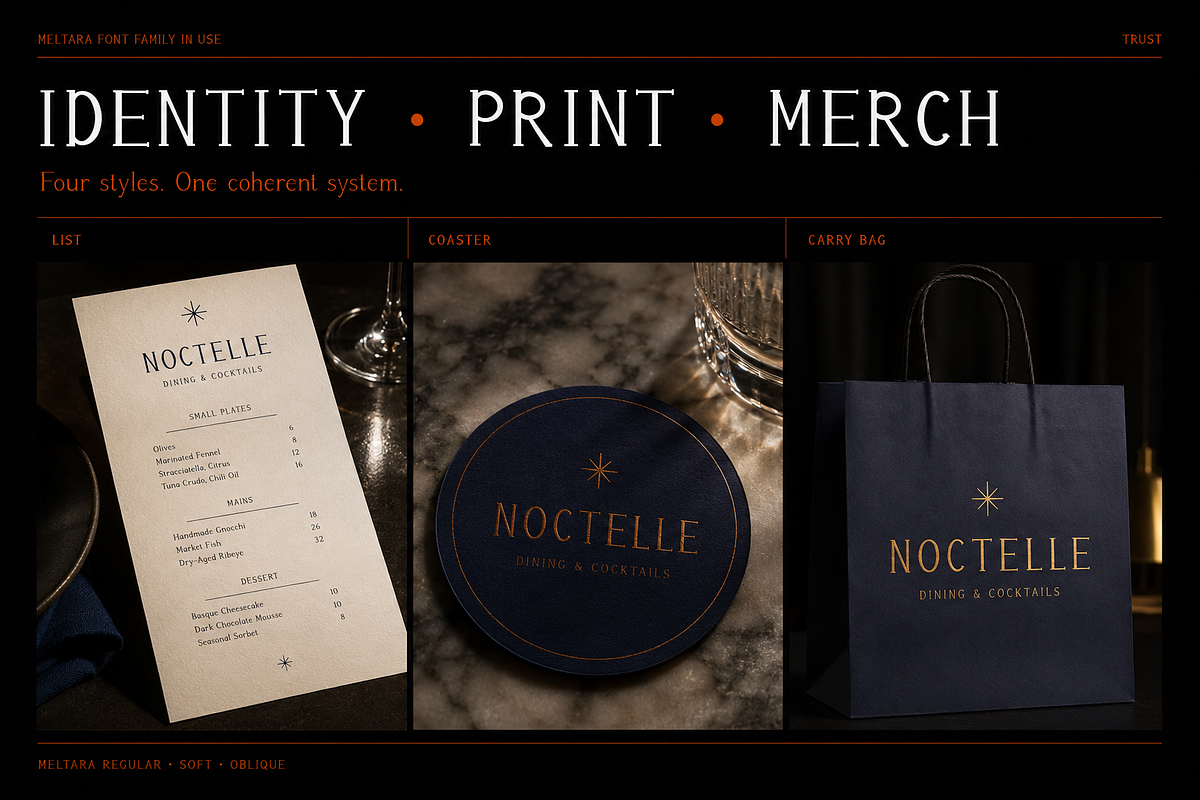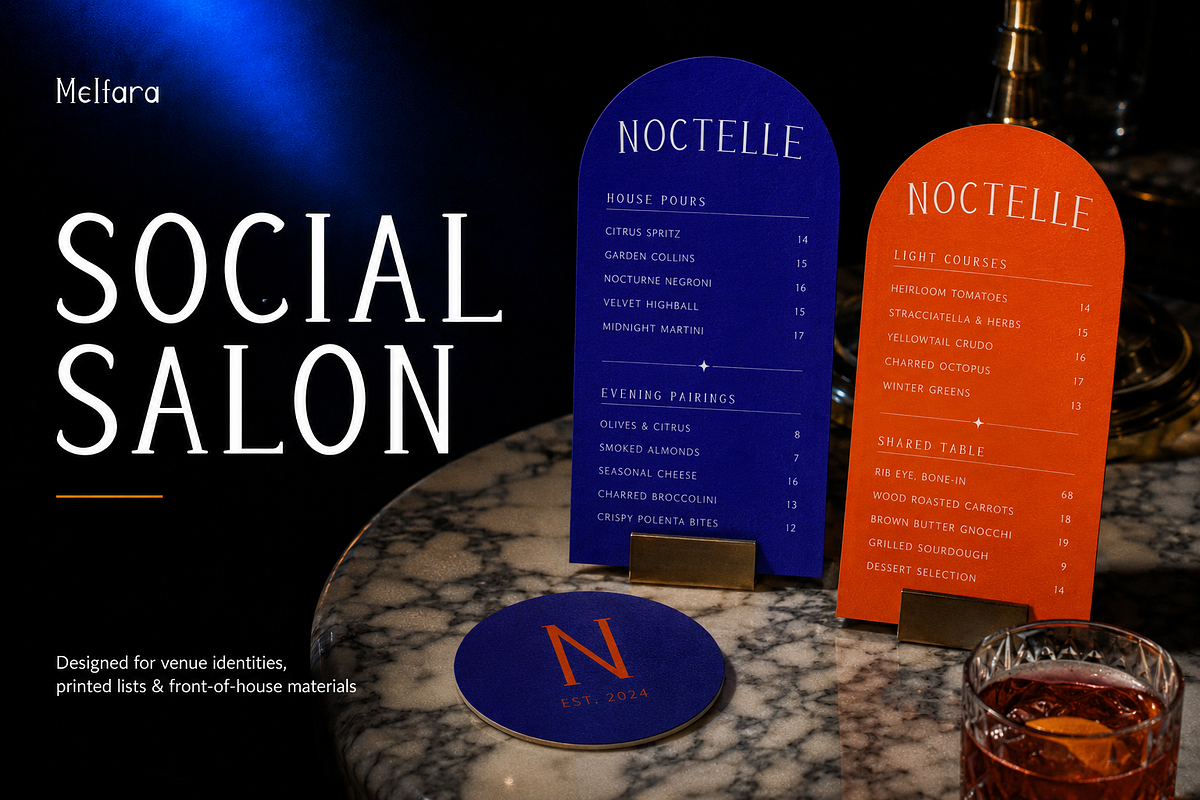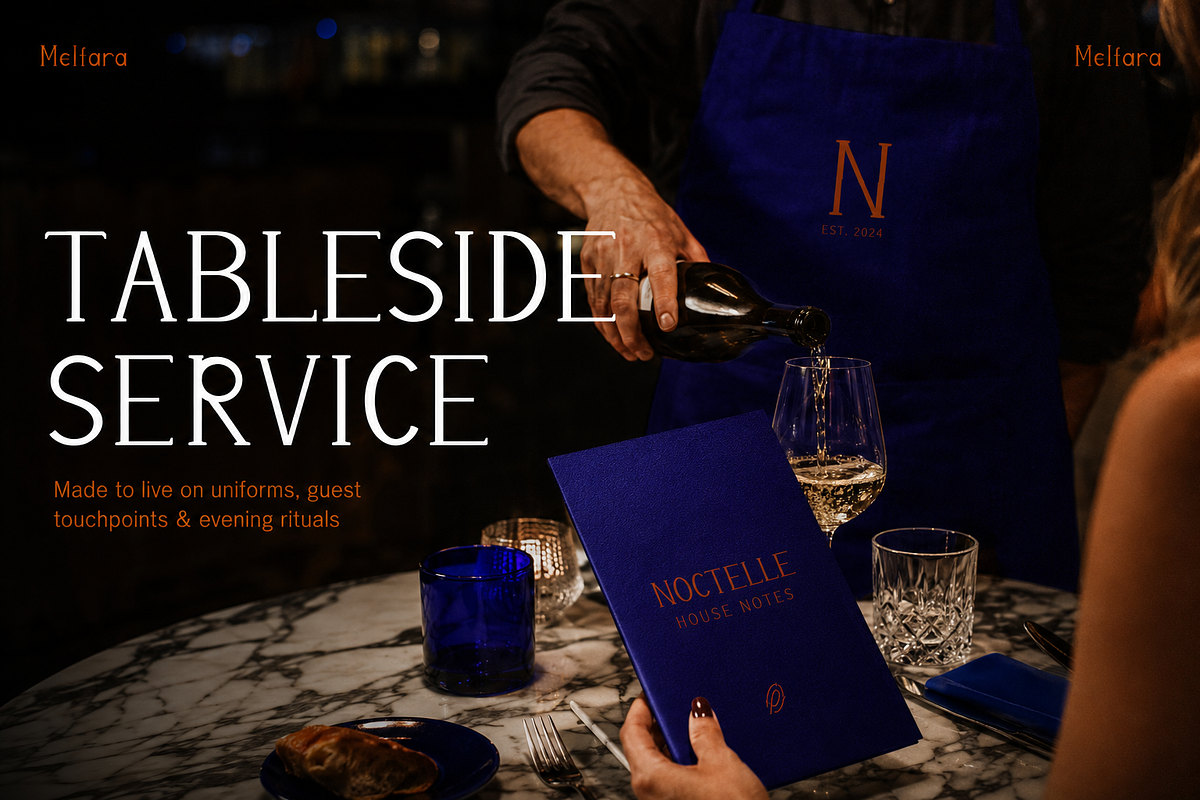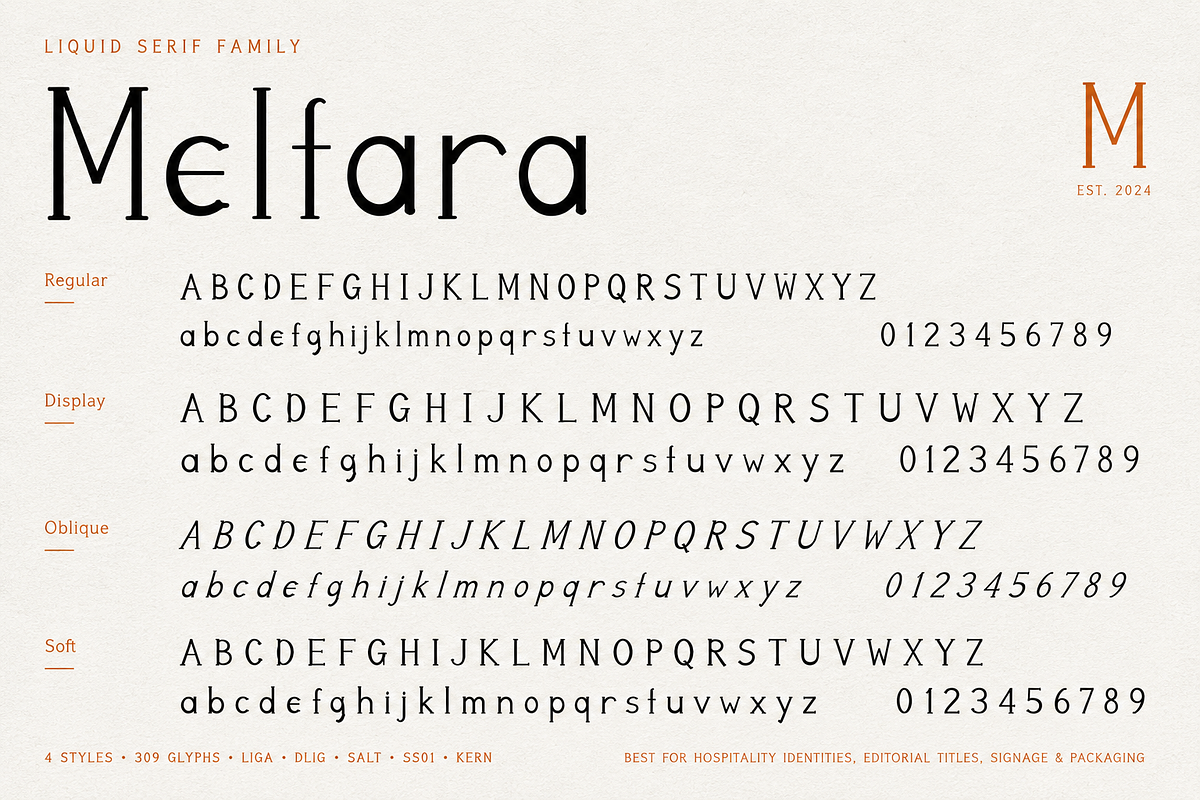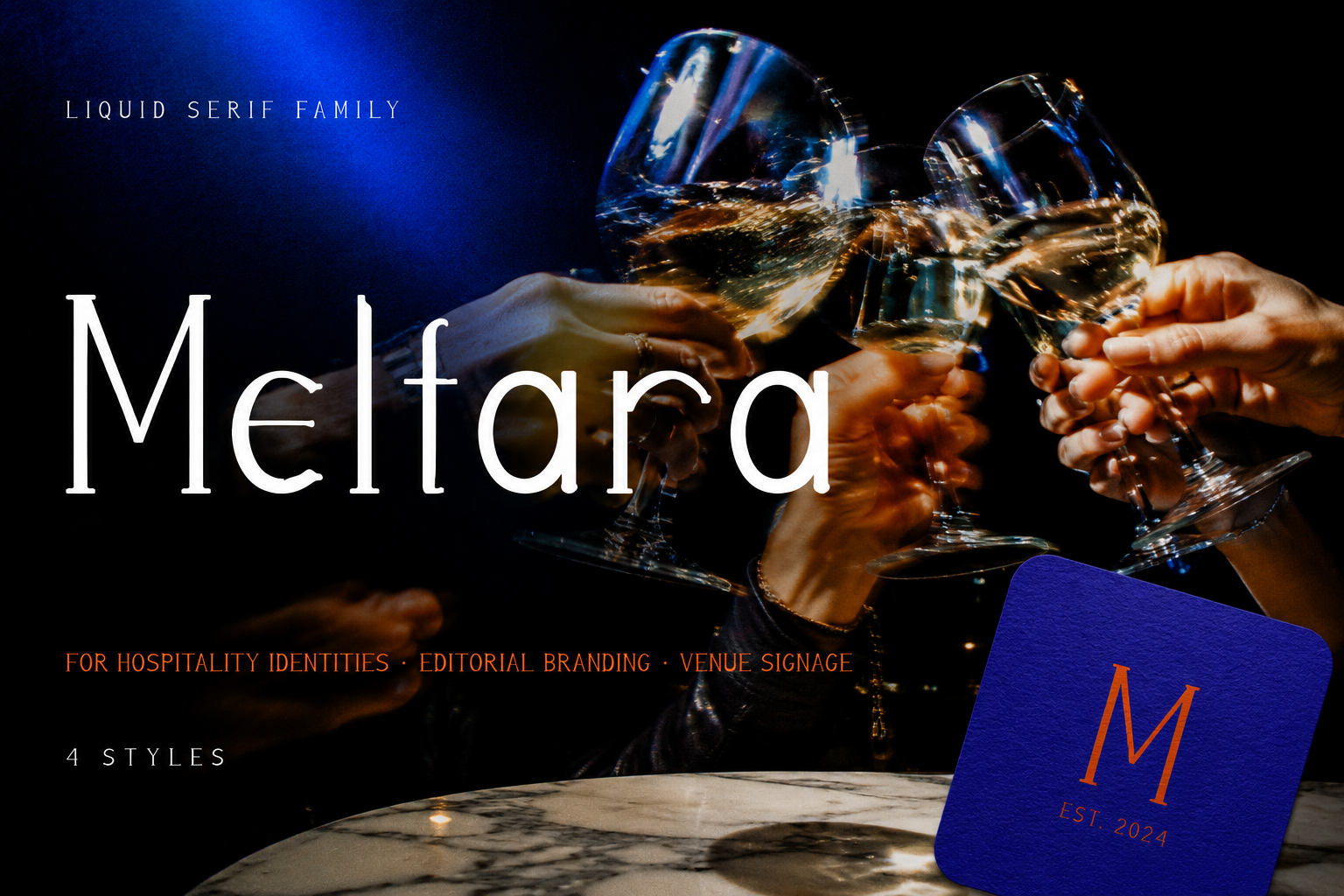
Meltara Liquid Display Font Family
Meltara is a distinctive liquid display font family built for logos, restaurant branding, cocktail menus, signage, packaging, and editorial design.
Designed to feel refined without becoming predictable, Meltara combines slender proportions, expressive curves, unusual letter construction, and a fluid visual rhythm that gives headlines and identities a recognizable voice.
The family includes four coordinated styles — Regular, Display, Oblique, and Soft — giving you enough variation to build a complete visual identity while keeping every application connected.
Use Meltara for sophisticated hospitality brands, cocktail bars, restaurants, cafés, editorial titles, menu systems, packaging, labels, posters, social campaigns, merchandise, logos, and statement typography.
• Meltara Liquid Regular
• Meltara Liquid Display
• Meltara Liquid Oblique
• Meltara Liquid Soft
FONT FEATURES
• 4 coordinated styles
• 309 glyphs per style
• Uppercase and lowercase
• Numerals and punctuation
• Standard ligatures
• Discretionary ligatures
• Stylistic alternates
• Stylistic Set 01
• Kerning
OpenType features include:
liga • dlig • salt • ss01 • kern
WHY MELTARA
Regular gives your identity a balanced foundation.
Display creates stronger headline impact.
Oblique introduces movement and energy.
Soft brings a gentler expression while remaining unmistakably Meltara.
Together, the four styles make it easy to create logos, menus, signage, packaging, campaigns, and editorial layouts that feel related without looking repetitive.
BEST FOR
Restaurant and cocktail bar branding
Hospitality identities
Logo and wordmark design
Menus and drink lists
Editorial headlines
Packaging and labels
Posters and advertising
Signage
Social media campaigns
Make your next identity feel composed, memorable, and alive after dark with Meltara.